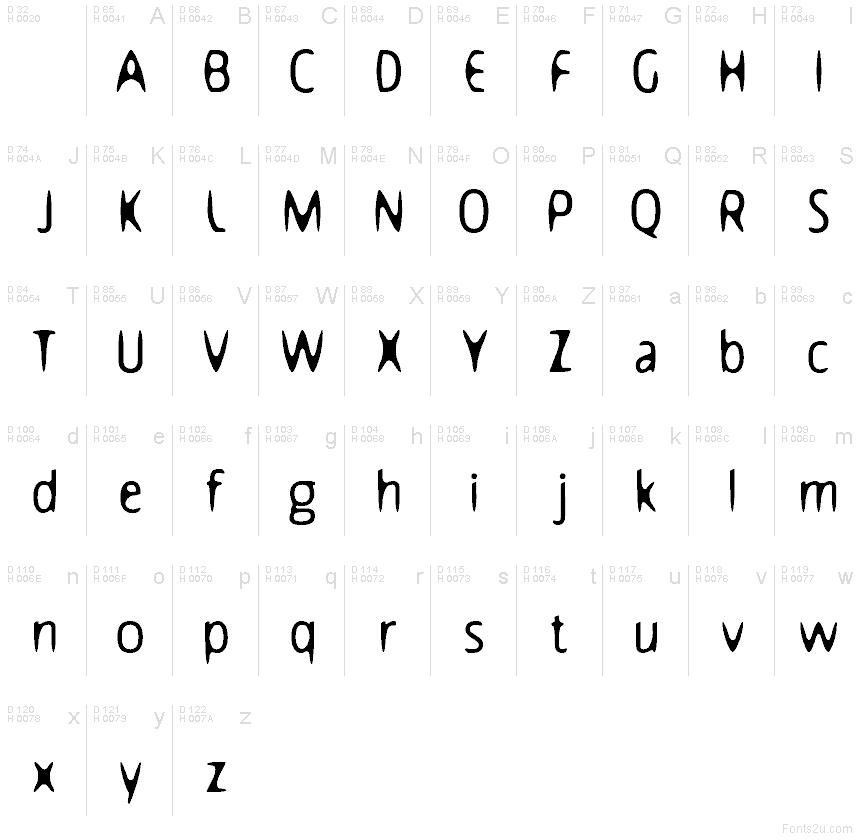
CS Holver Drawn font by Craft Supply Co. is a free medium eroded condensed display font. Built within the CS Holver family, it stands out with inky, scuffed edges and softly pinched counters that give each glyph a hand-cut, slightly wobbly rhythm. The narrow stance packs impact into tight spaces, while its organic wear adds grit without sacrificing clarity.
This free font shines on posters, indie album covers, craft packaging, café menus, zines, and apparel prints. Using CS Holver Drawn gives headlines a tactile, lived‑in feel that reads fast and hits hard at larger sizes. Pair it with the clean CS Holver regular for body copy, or keep spacing generous to let those textured strokes breathe.